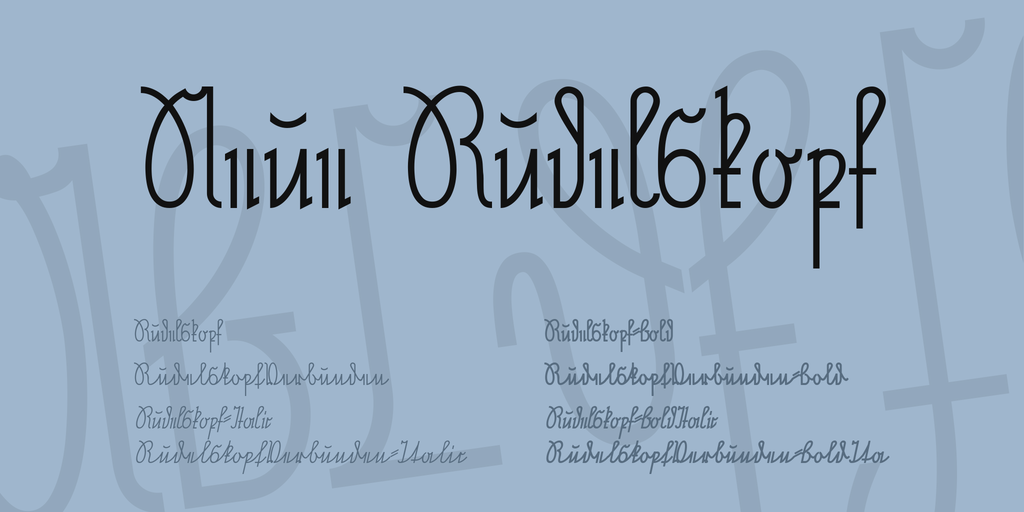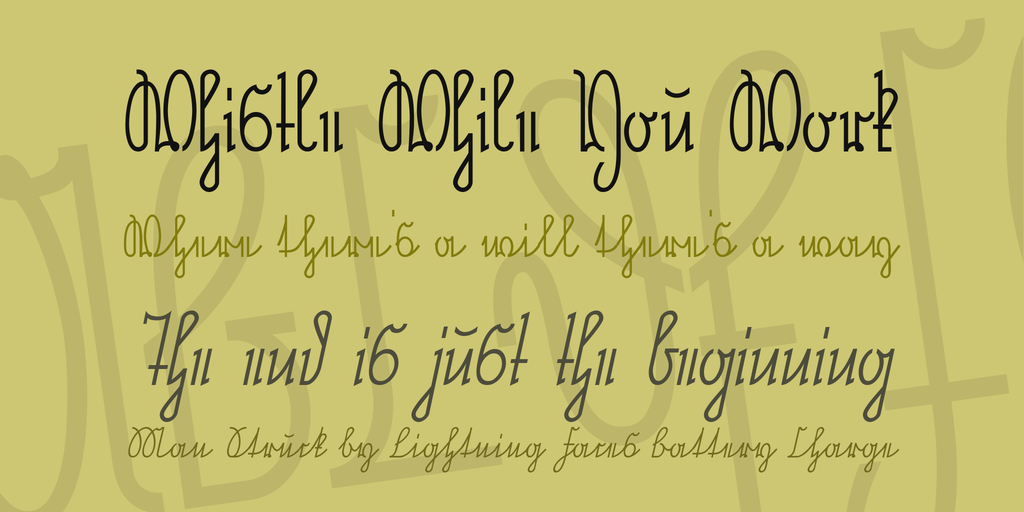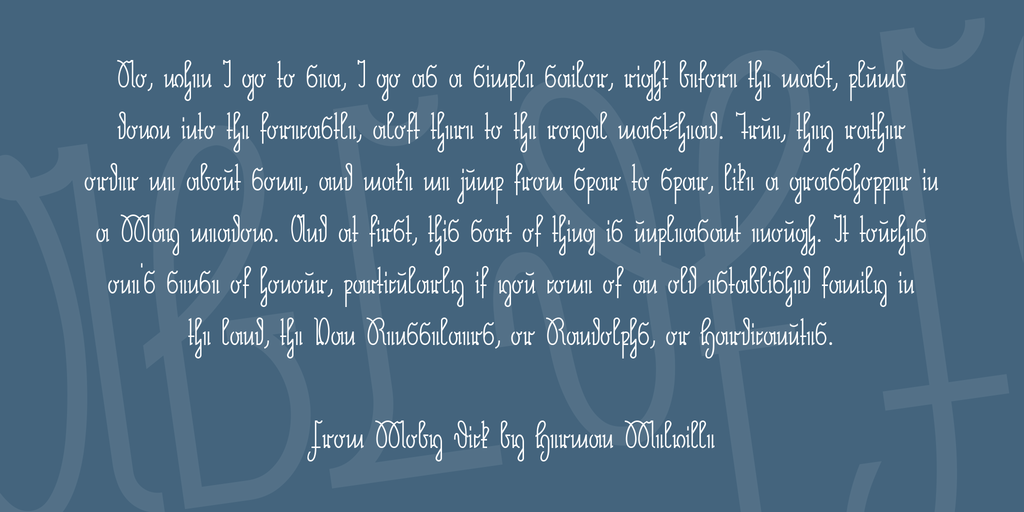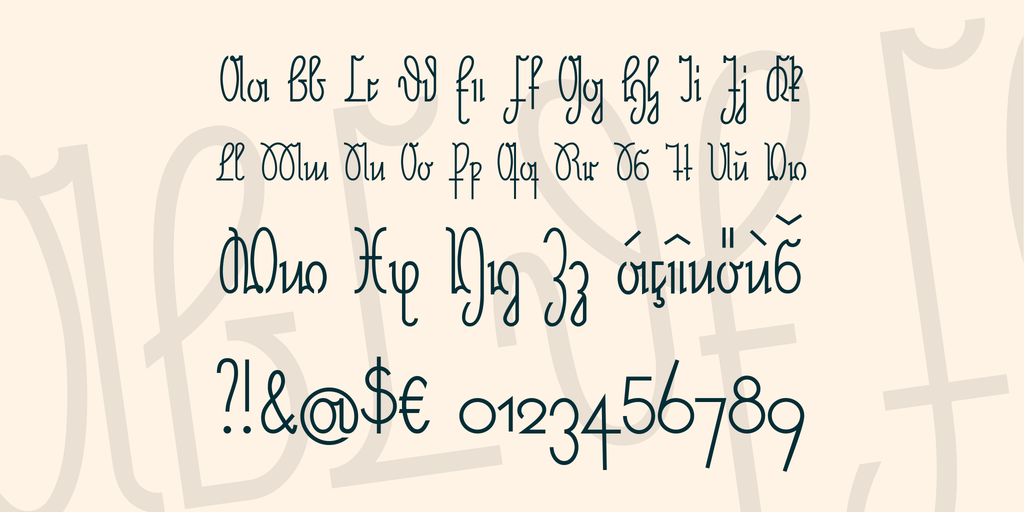
Neue Rudelskopf Font Family
Neue Rudelskopf Font Family Made by Peter Wiegel
Translation of the original German description: Some years ago I had drawn the Rudelskopf. That font was actually nothing more than an experiment and not meant seriously. Hence, Mr. Thorwald Poschenrieder has contacted me to ask if I could make the font more legible and so I fine-tuned this font with his help. In the end we created something entirely new, a kind of block letters, but with the forms of “German Script”, which is legible to someone who can read German kurrent. The more time I spent with this font and the glyphs, the more I realized that this font is very good to learn “Sütterlin”, as it does not include the typical long jagged strokes, and one can concentrate more on the pure letterforms. Therefore, I have supplemented this font by a second variant with slightly extended strokes, so as to facilitate a transition to a connected kurrent. A further expansion of the family with forms of blackletter and gothic script but also in the direction of the latin script will follow in the future, when I find the time for it.